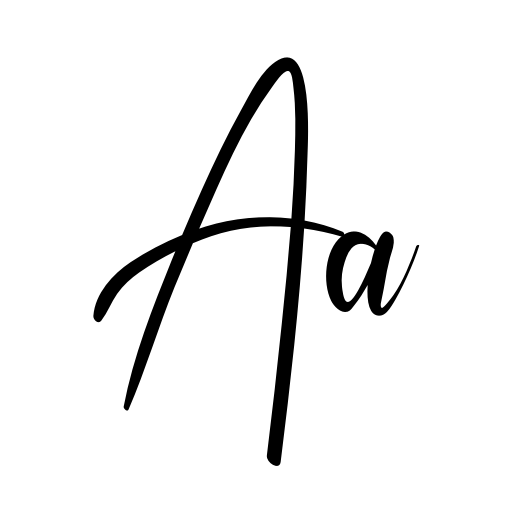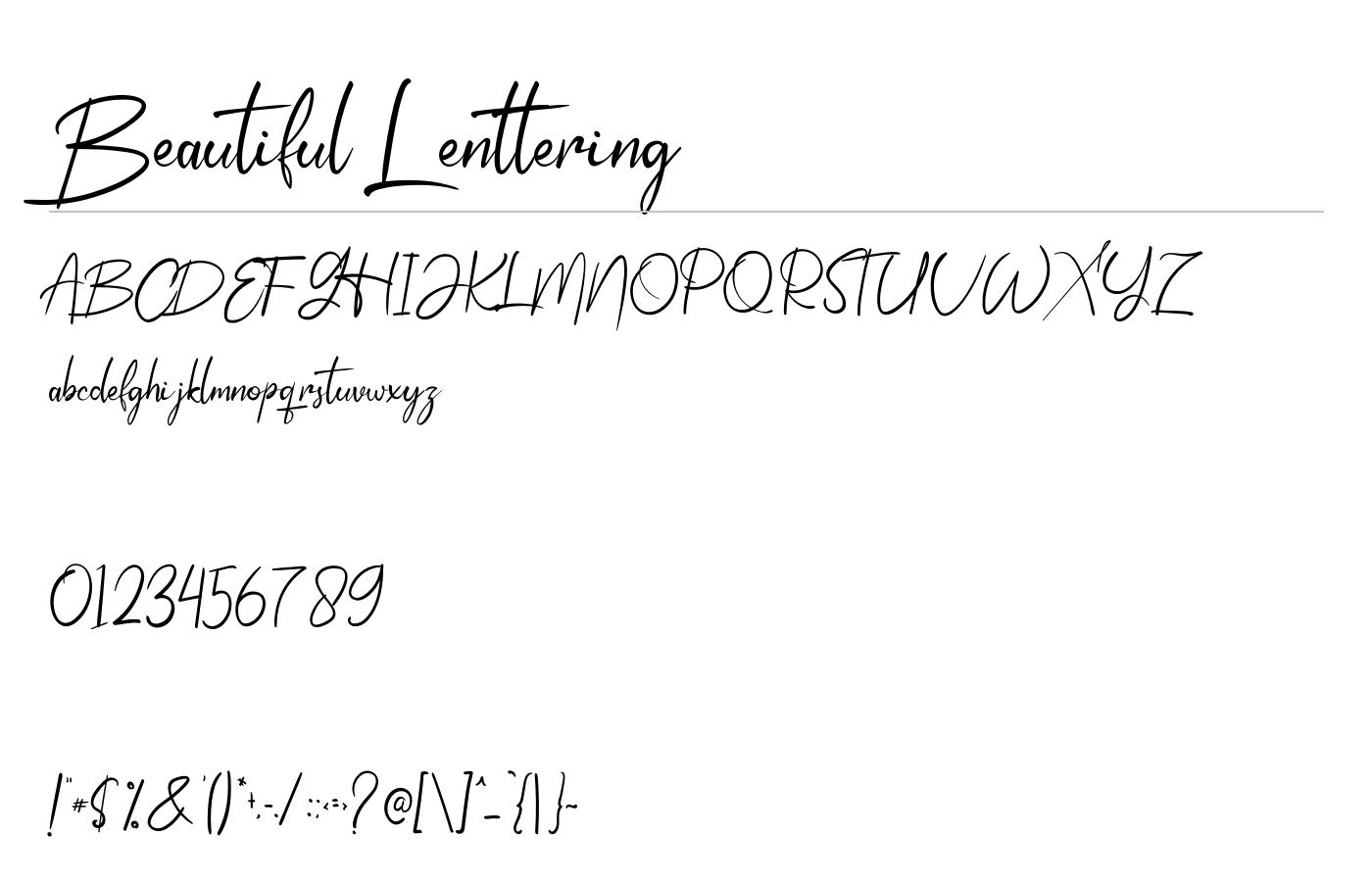
Beautiful Lenttering Font is a delicate and elegant script typeface with a light weight and narrow width, featuring smooth and flowing letterforms that resemble natural handwriting. Its tall x-height and slightly irregular strokes give it a charming, personal feel, making it perfect for stylish invitations, branding, and creative projects that seek a sophisticated yet approachable touch. This font works especially well for fashion, beauty, and lifestyle designs where a refined, handcrafted look is desired.
Beautiful Lenttering Font
About Beautiful Lenttering Font